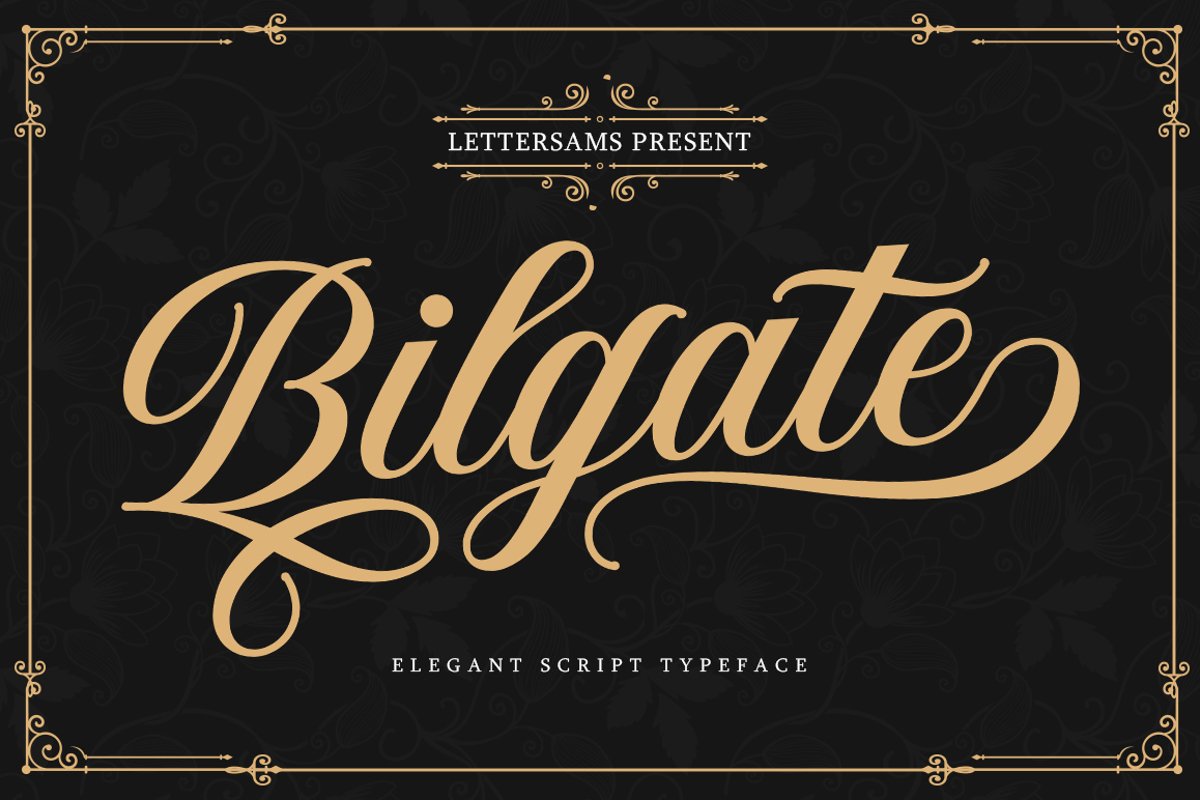
Bilgate Script
Bilgate Script is an elegant script typeface. Thick, attractive & fun vintage script fonts. very suitable for various purposes and desires. Such as logos, labels, posters, wedding invitations, brands, t-shirts, letterhead, signage, news, book covers, magazines, osterers, badges, etc.